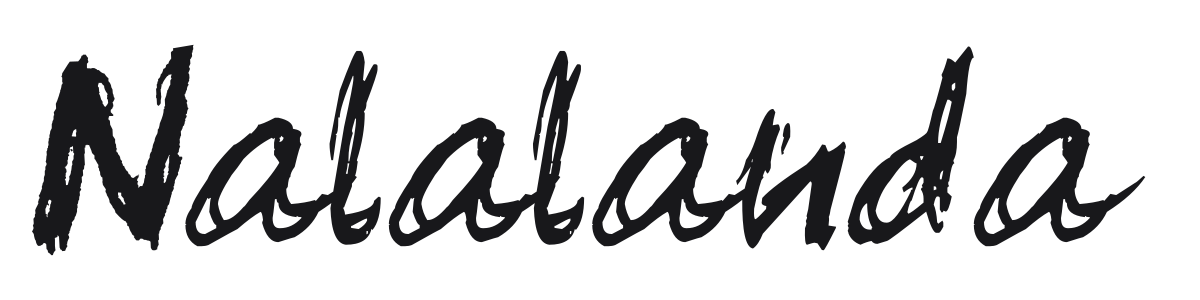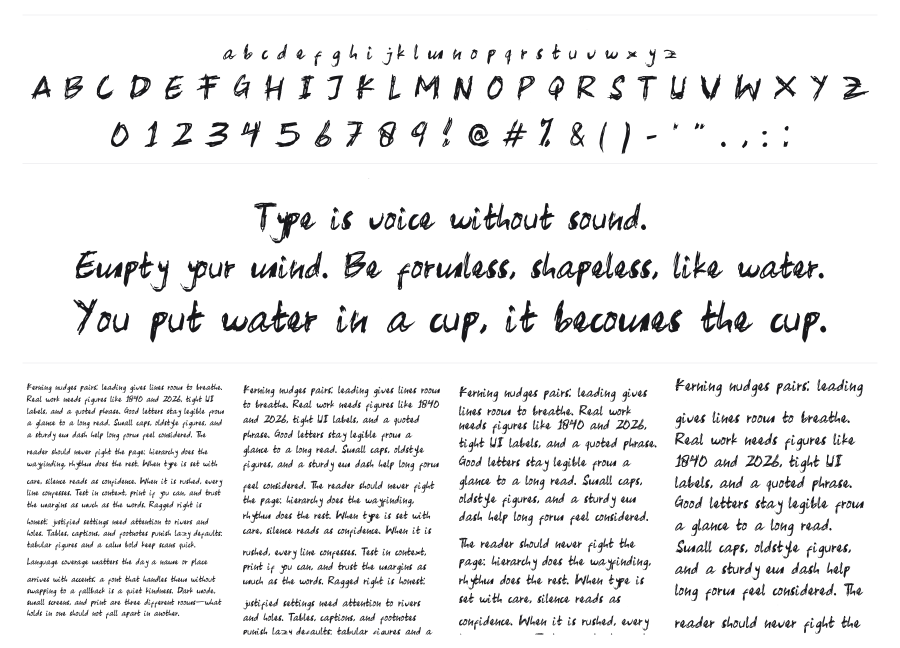
Nalalanda
Nalalanda is a grunge handwritten script with heavy ink texture and a fast, slanted stroke. The rough, frayed quality of each character gives it an authentically spontaneous feel, as if scrawled quickly with a worn-out brush. It works well for editorial headlines, band posters, streetwear graphics, and any project that needs visible attitude.